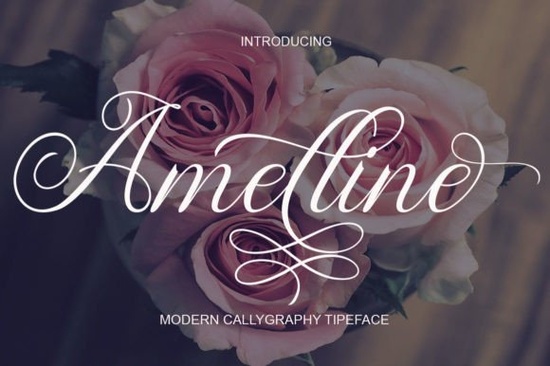
If you’re looking for a script font that feels personal but still polished, Amelline Font might be just what your next project needs. It’s a modern calligraphy style with the kind of natural flow you’d expect from real handwriting not stiff or overly formal, but relaxed and expressive. Whether you’re designing wedding invites, branding a small shop, or printing custom tees, this font adapts without losing its charm.
What makes Amelline Font stand out from other script fonts?
Many script fonts try too hard to look “fancy,” ending up stiff or hard to read. Amelline avoids that. Its letterforms have subtle variations in stroke weight and gentle curves that mimic how someone might actually write with a brush pen. That’s why it works so well for things like logos or labels it adds personality without sacrificing clarity.
It also comes PUA-encoded, which is designer-speak for “you can actually use all the pretty swashes and alternate characters without jumping through hoops.” No need to dig into glyph panels or install extra files. If you’ve ever struggled with fonts that hide their best features, you’ll appreciate how straightforward this one is.
Where should I use this font?
Because of its balanced design, Amelline fits a surprising range of uses:
- Wedding stationery invitations, menus, place cards
- Small business branding boutique logos, packaging, social media graphics
- Print-on-demand products mugs, tote bags, t-shirts with hand-lettered quotes
- Editorial design magazine headlines, blog feature images, newsletter banners
- Craft projects vinyl decals, embroidery patterns, handmade greeting cards
One thing to note: while it’s legible at medium sizes, avoid using it for body text or tiny labels. Script fonts like this shine when they have room to breathe. Pair it with a clean sans-serif (like Montserrat or Lato) for contrast, and you’ve got a combo that works for both digital and print.
How does it compare to similar fonts on Creative Fabrica?
If you’ve browsed script fonts before, you’ve probably seen Nagita or Pinky both lovely, but with different personalities. Nagita leans more romantic with tighter loops, while Pinky has a playful bounce. Moretimes offers a vintage twist. Amelline? It’s the quiet achiever understated enough for professional use, but with enough flair to feel special.
What sets it apart is consistency. Some script fonts change dramatically between uppercase and lowercase, making them tricky to style. Amelline keeps its character across cases, so your headings and subheadings will feel cohesive.
Any tips for getting the most out of this font?
A few practical ideas:
- Use OpenType features. If your software supports it (Adobe apps, Affinity, etc.), toggle stylistic alternates to swap in flourishes or simplified versions depending on context.
- Adjust tracking slightly. Scripts can look cramped. Adding 10–20 units of letter-spacing often improves readability without breaking the flow.
- Try it over textured backgrounds. The organic shape pairs beautifully with watercolor washes, kraft paper, or linen textures great for Etsy sellers or handmade brands.
Fonts like Amelline remind us that good design doesn’t have to shout. Sometimes, the quiet ones the ones that feel like they were written just for you are the ones that leave the strongest impression.